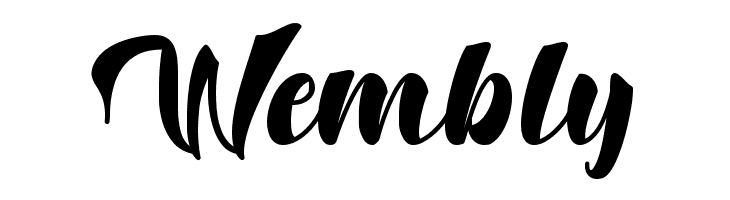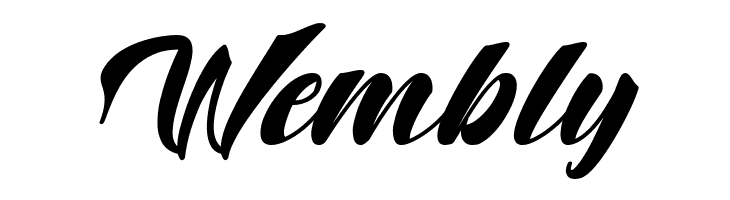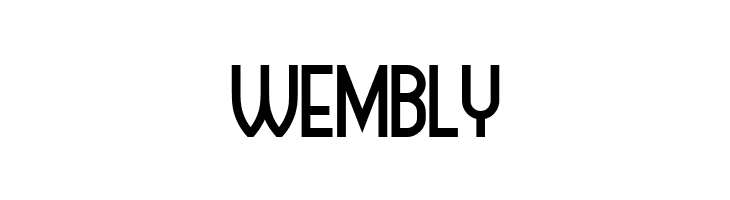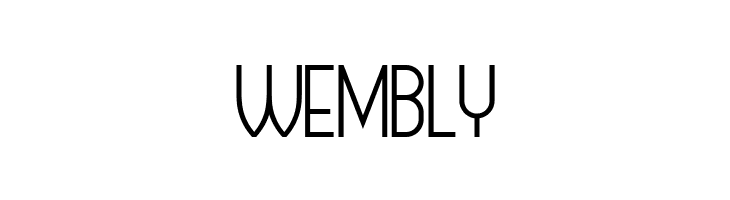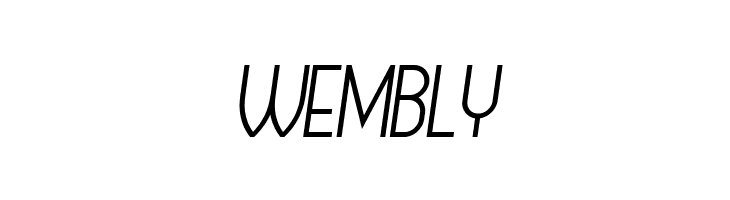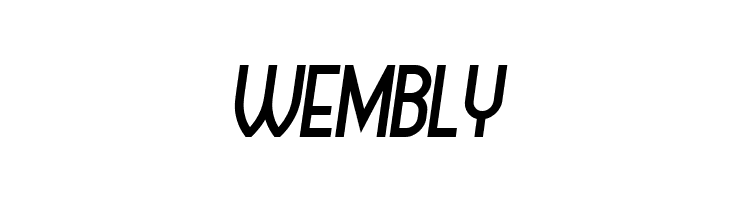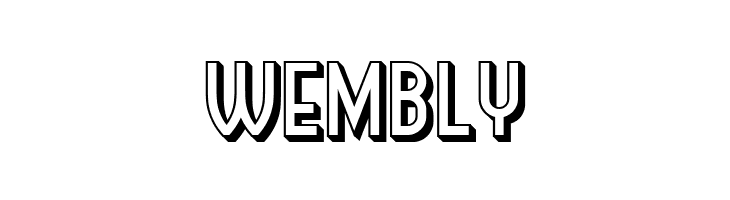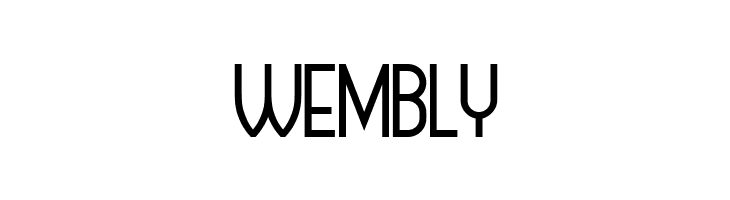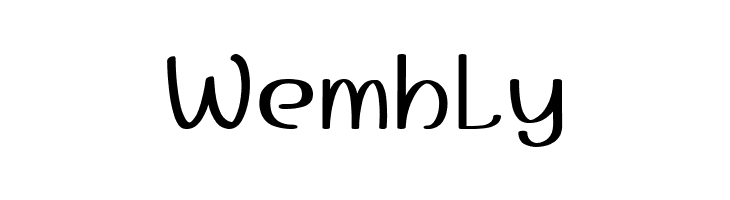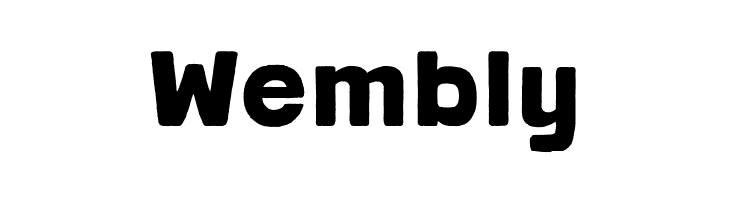
An elegant, italicized serif font with high contrast and small caps.
Elegant serif typeface with high contrast and classic appeal.
A refined, cursive script font with instructional guides.
Traditional serif font with moderate contrast and elegant proportions.
A sleek, geometric font with a modern and elegant design.
A modern, geometric font with arrow-like accents and clean lines.
A playful and whimsical font with bold, curvy letterforms and decorative elements.
A bold, 3D geometric font with thick outlines and a shadow effect.
A bold, geometric sans-serif font with a modern and structured design.
Bold, italicized font with a dynamic and compact style.
A modern, italicized font with a sleek, condensed appearance.
A modern, geometric sans-serif font with a sleek, condensed style.
A modern, italic font with elongated, uniform characters and a sleek design.
A modern, geometric sans-serif font with a tall, condensed structure.
A playful, bold font with a hand-drawn, whimsical style.
A playful, bold typeface with rounded, bubbly characters and a hand-drawn feel.
A bold, 3D font with a dotted texture and retro style.
A bold, rounded font with a modern yet classic style.
A bold, geometric font with a modern and striking design.
A bold, geometric font with a modern, industrial feel.
A modern, geometric sans-serif font with clean lines and uniform stroke width.
A modern, geometric sans-serif font with clean lines and consistent stroke width.
A modern, geometric sans-serif font with clean lines and uniform stroke width.
A bold, geometric font with a modern, industrial style and distinctive cut-out sections.
A bold, geometric stencil typeface with a modern, industrial aesthetic.
A bold, stencil-like font with high contrast and industrial appeal.
A modern, geometric font with clean lines and a minimalist design.
A modern, geometric stencil font with clean lines and sharp angles.
A modern, geometric sans-serif font with clean lines and consistent stroke width.
A modern, geometric stencil font with a semi-bold weight and industrial feel.
A bold, expressive script font with high contrast and elegant flourishes.
A bold, italic script font with high contrast and decorative flourishes.
A playful, rounded font with a handwritten feel and smooth curves.